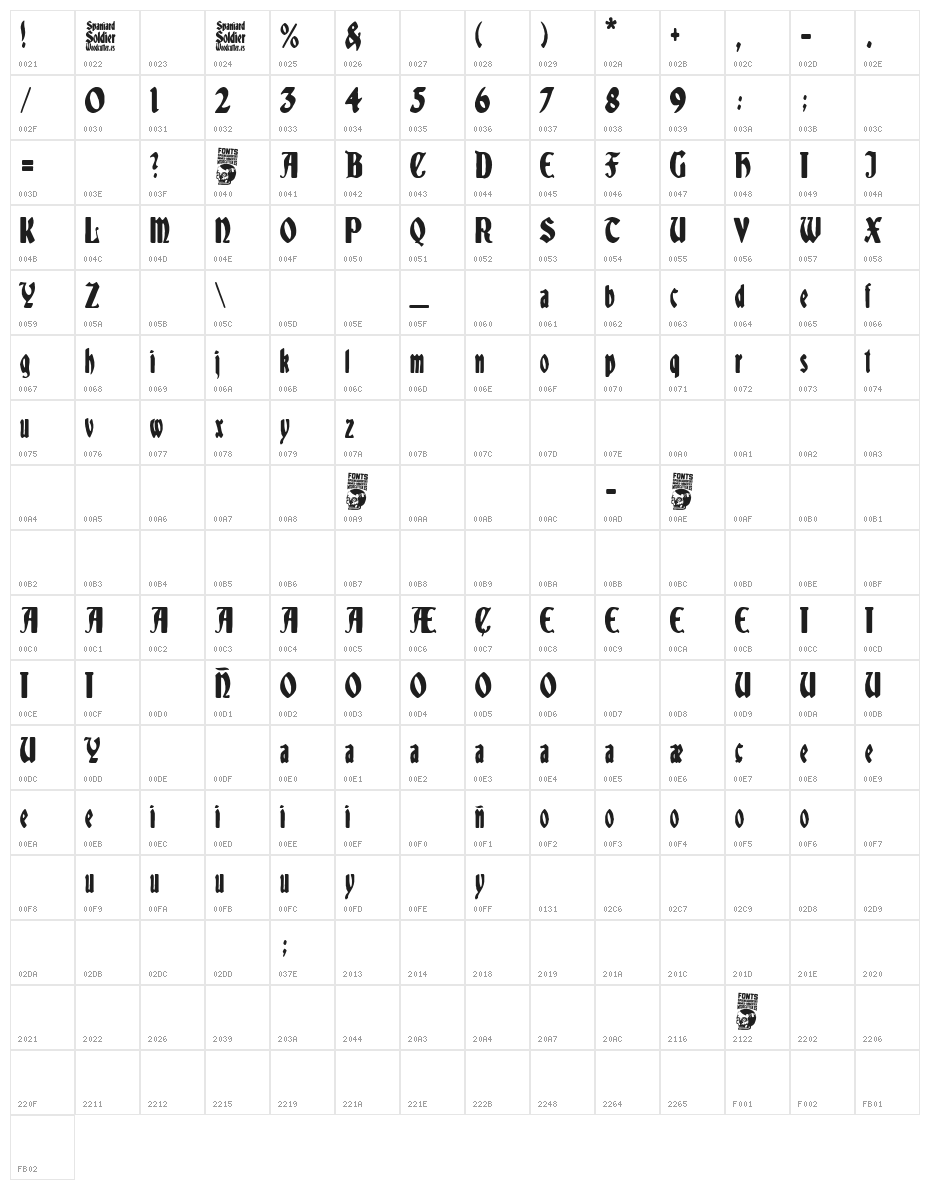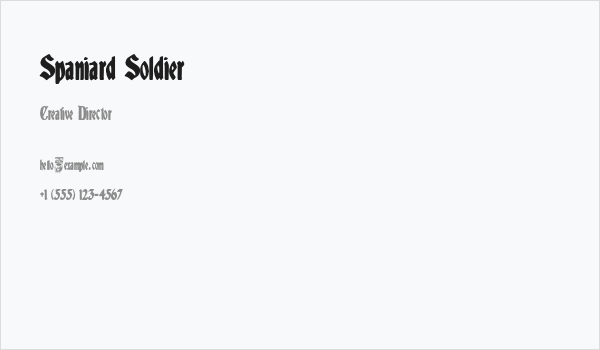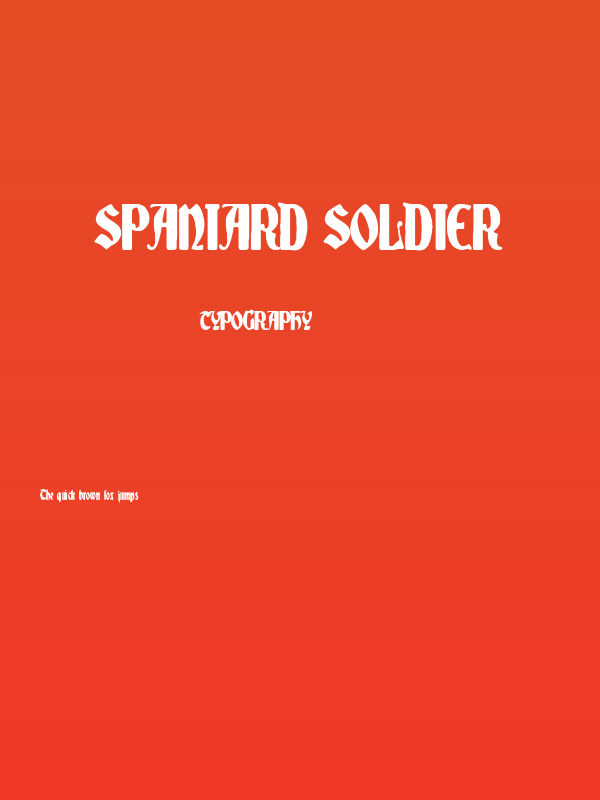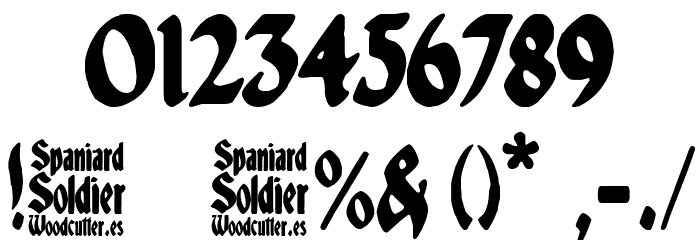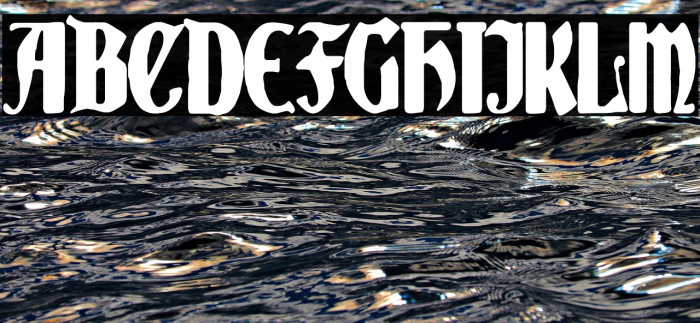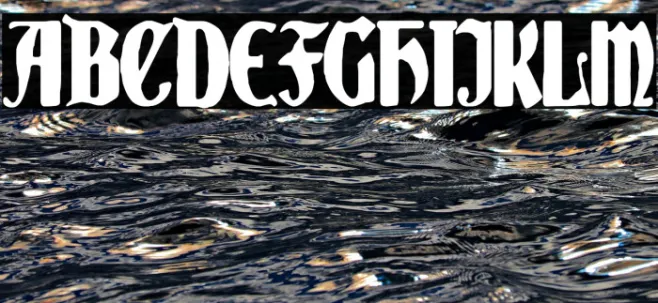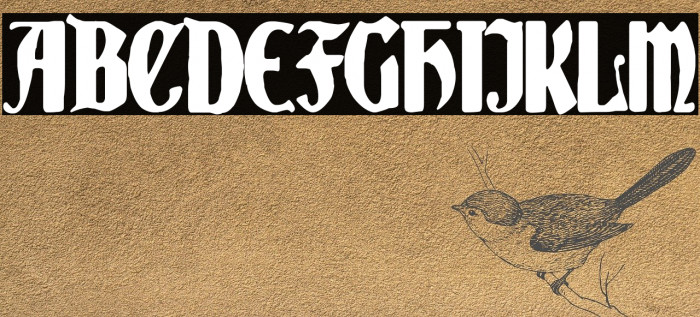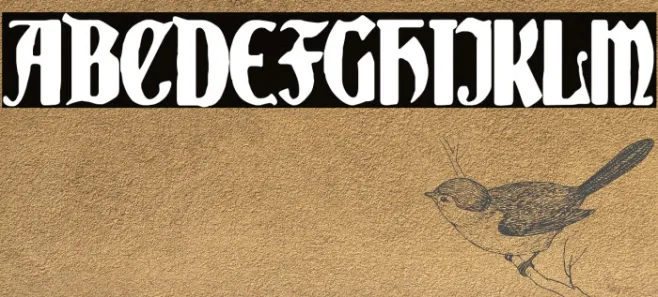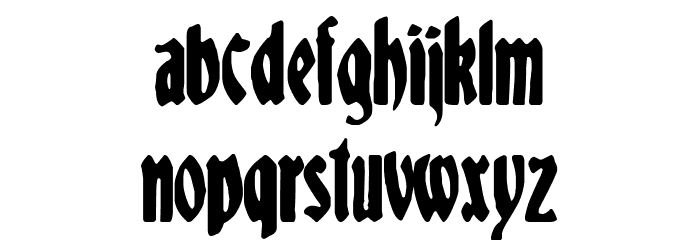
Spaniard Soldier Font
Spaniard Soldier Description
This font features a bold, dramatic style with a strong presence, reminiscent of historical or medieval themes. The uppercase letters are characterized by sharp, angular lines and pronounced serifs, giving them a commanding appearance. The lowercase letters maintain a consistent style, with a slightly more condensed form, adding to the font's overall cohesive look. The numerals are bold and easily legible, matching the assertive style of the alphabet. Special characters are designed to complement the font's medieval aesthetic, making it suitable for projects that require a touch of historical flair.
SPANIARD-SOLDIER UPPERCASE
SPANIARD-SOLDIER LOWERCASE
SPANIARD-SOLDIER OTHER CHARS